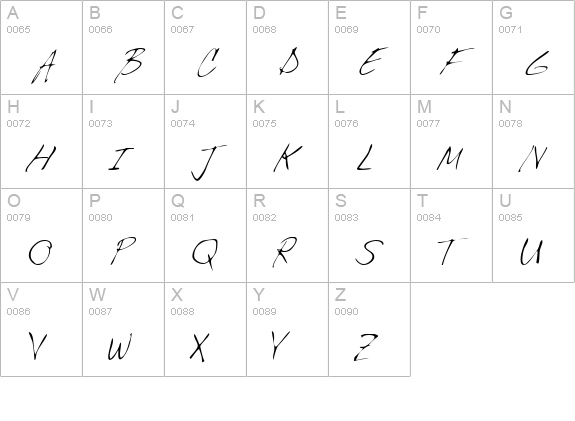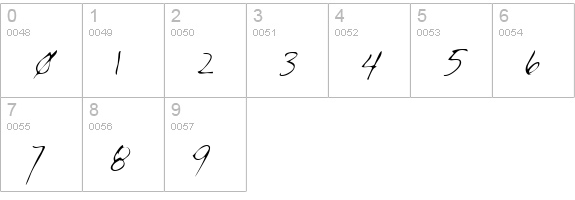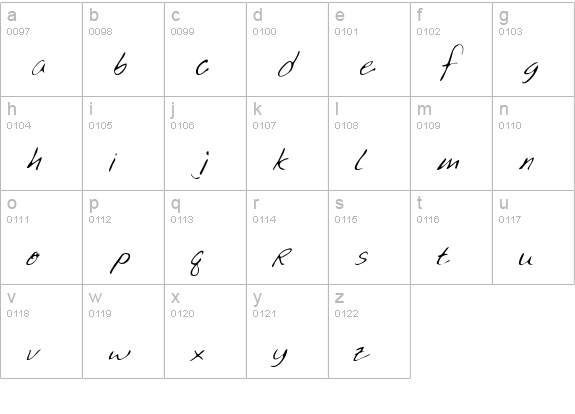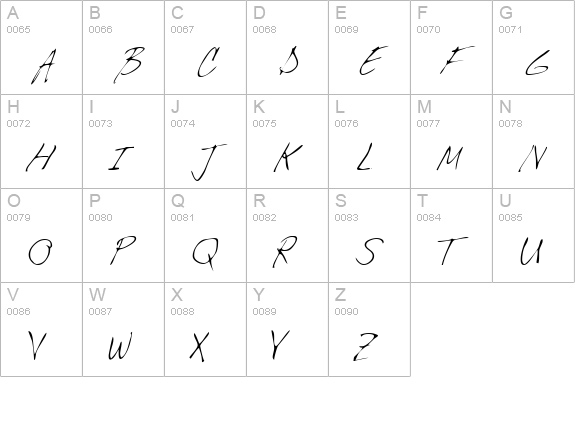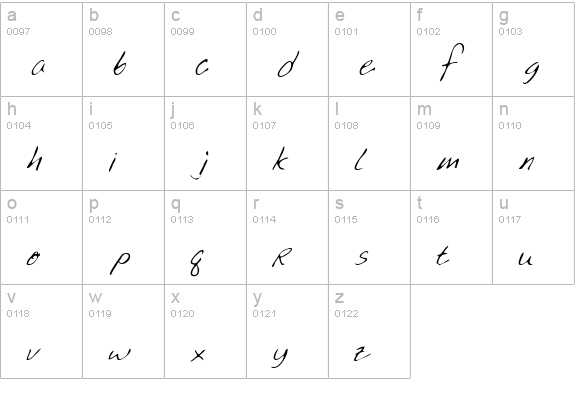
BrendensHand Font Details
BrendensHand font is a charming and whimsical handwritten typeface that exudes a warm and friendly feel. Perfect for adding a personal touch to your designs, this font features smooth curves and playful flourishes that give it a unique and inviting appearance. Whether you're creating greeting cards, invitations, or social media graphics, BrendensHand font is sure to bring a touch of warmth and personality to your projects. And the best part? BrendensHand font is available for free download at FontsMarket.com. So go ahead and add this delightful font to your collection today and let your creativity soar with its versatile and engaging style.